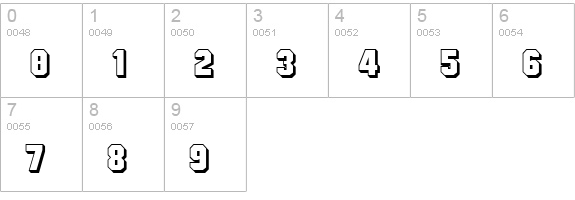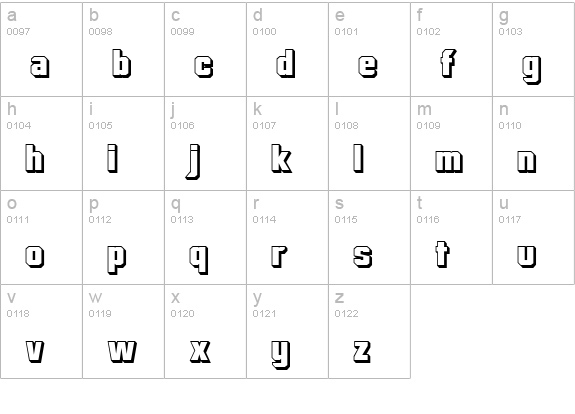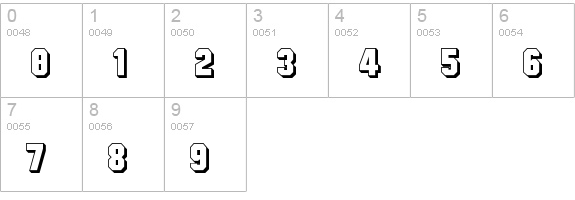
Mister Belvedere 3D Font Details
Introducing the exquisite Mister Belvedere 3D font, a captivating and sophisticated typeface that will elevate your designs to new heights. This font exudes elegance and charm with its three-dimensional effect, adding depth and dimension to your projects. Perfect for creating eye-catching headlines, logos, and branding materials, Mister Belvedere 3D font is a versatile choice for any design project. The best part? Mister Belvedere 3D font is absolutely free to download at FontsMarket.com. Simply visit the website and access this stunning font to enhance your creative endeavors. With its unique style and intricate details, Mister Belvedere 3D font is sure to make a lasting impression on your audience. Download now and start incorporating this beautiful font into your designs today!